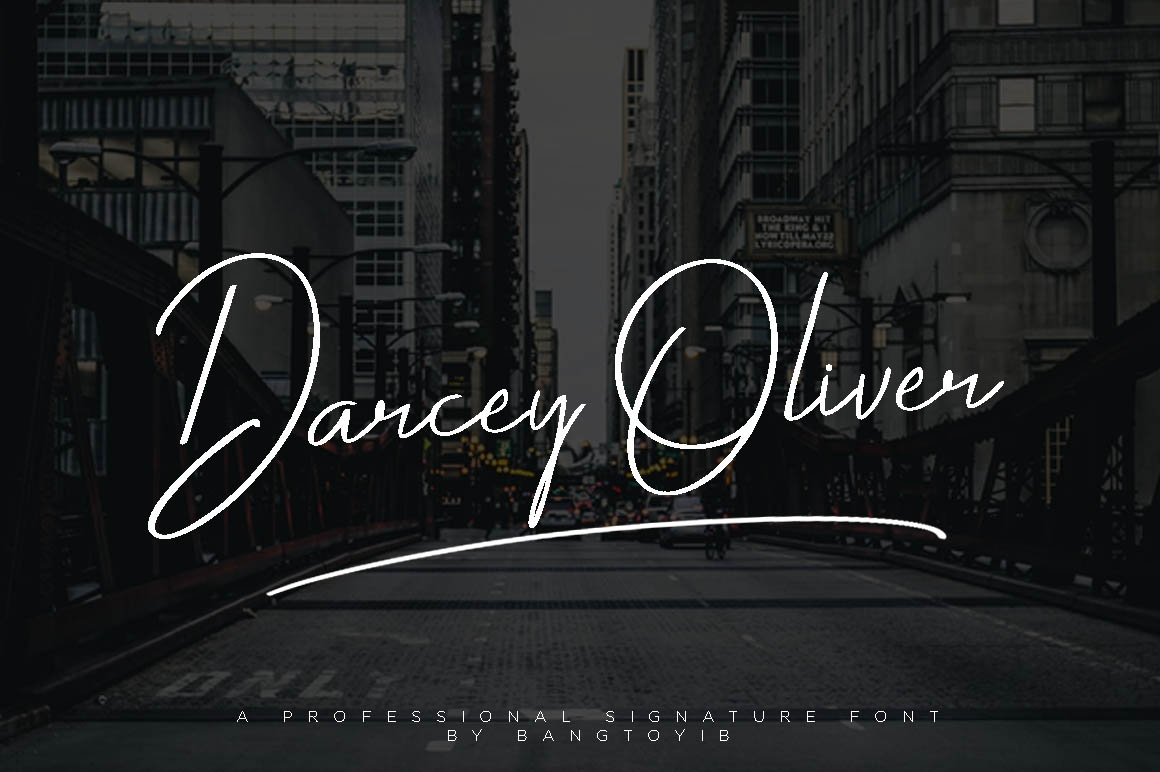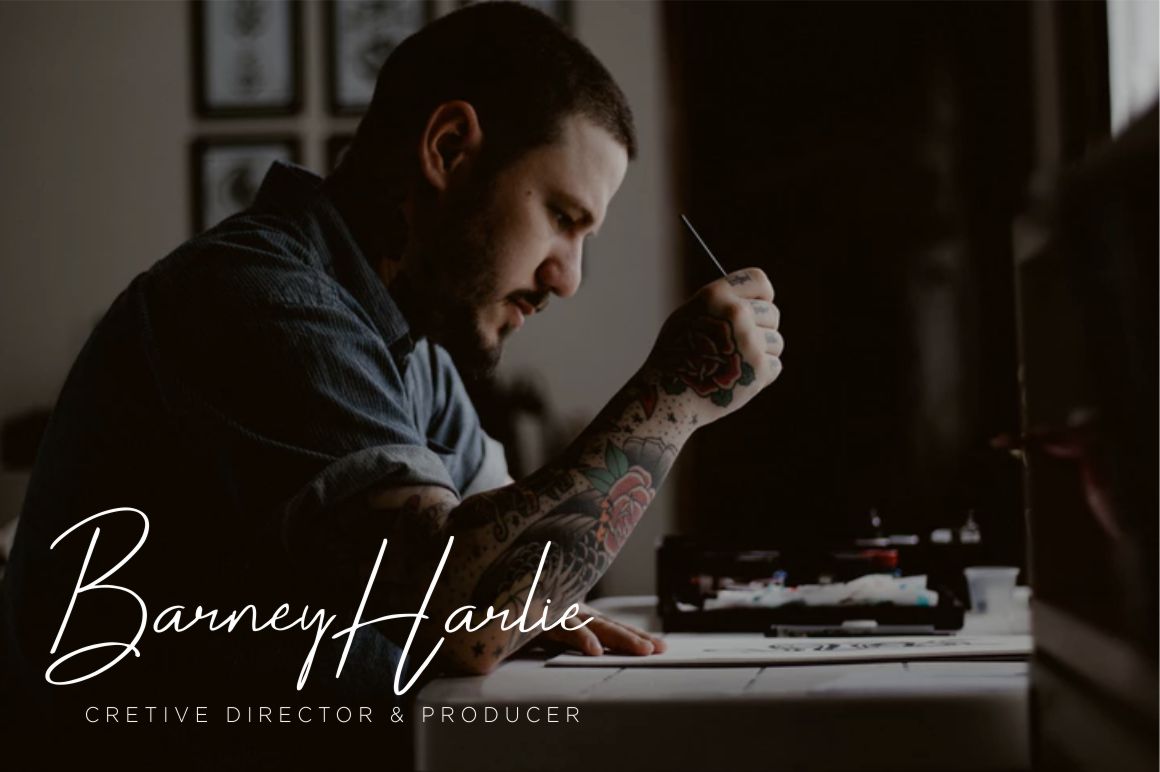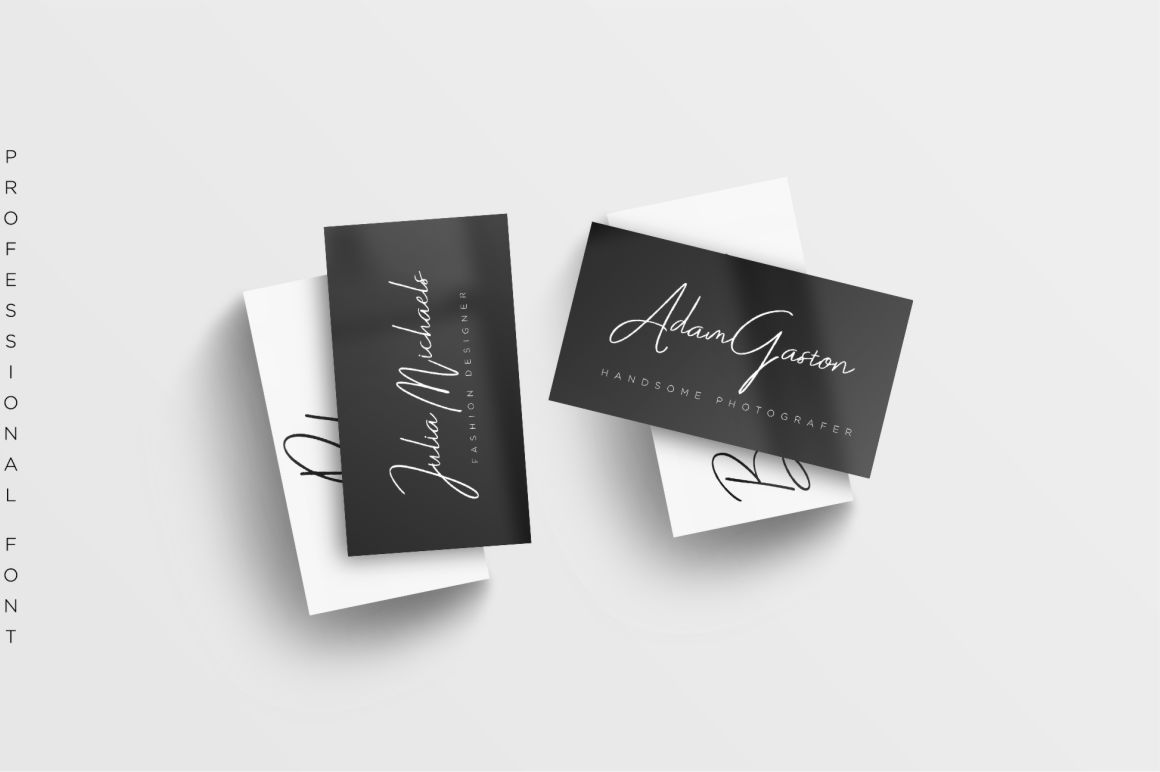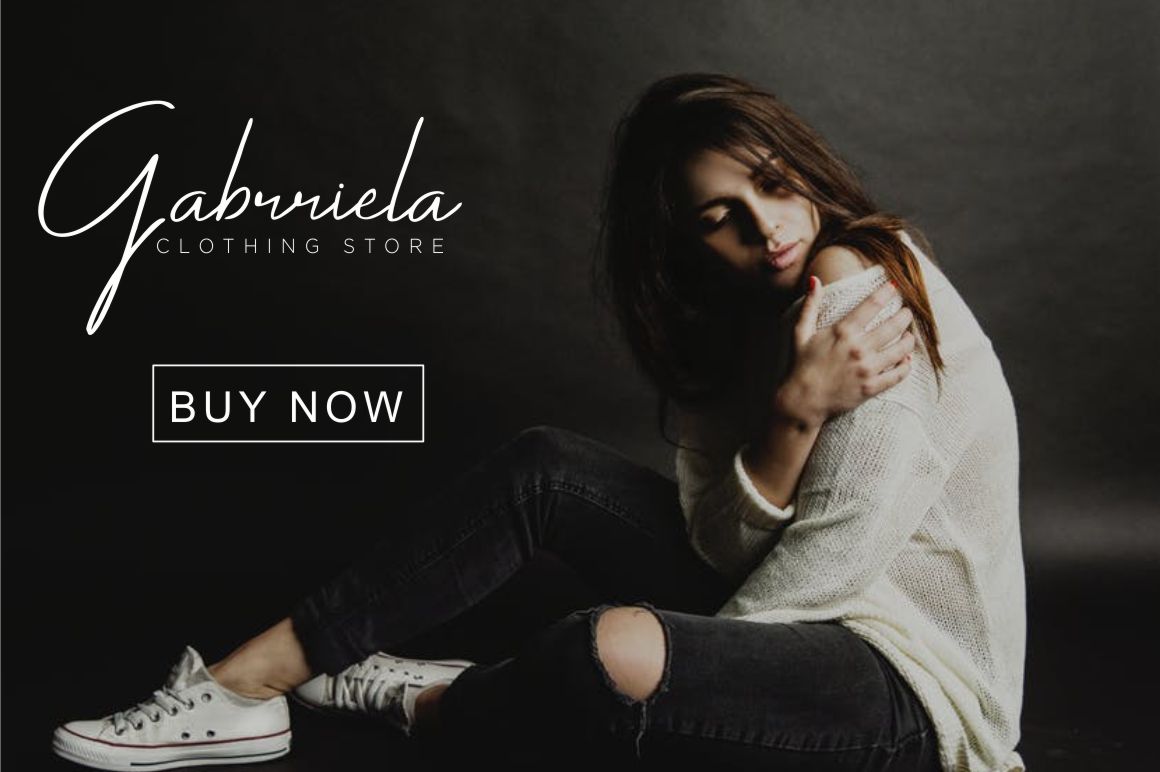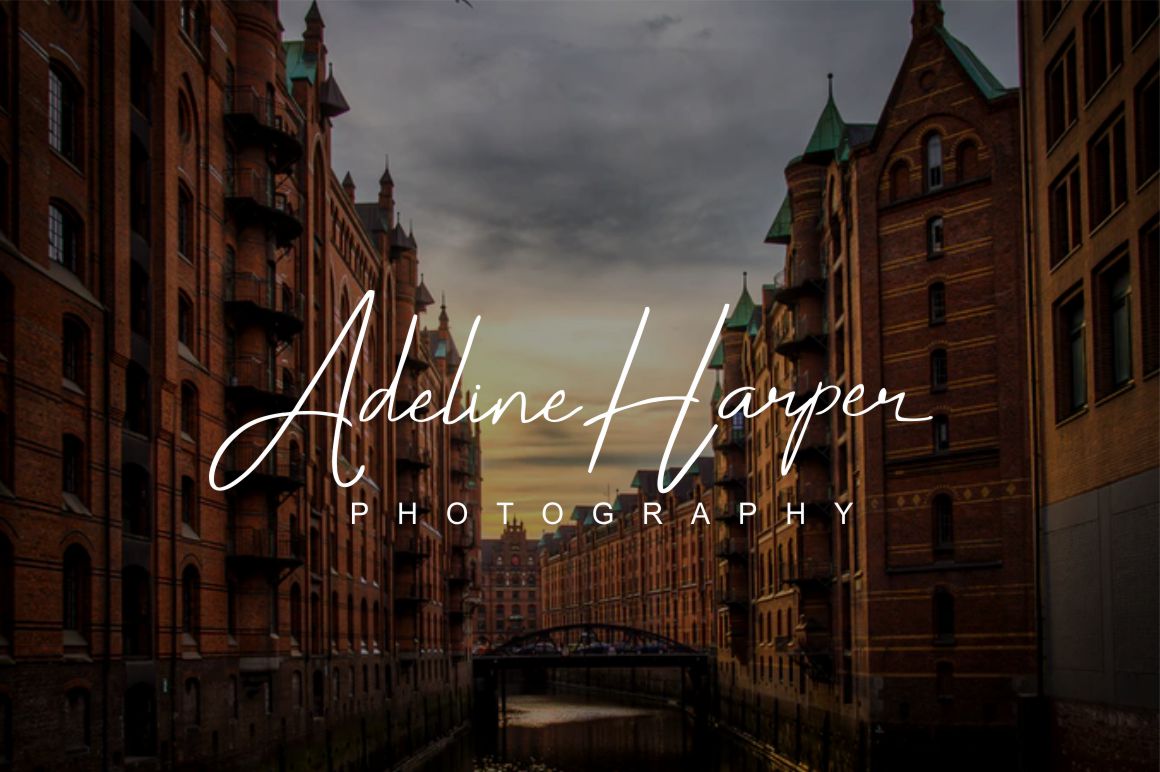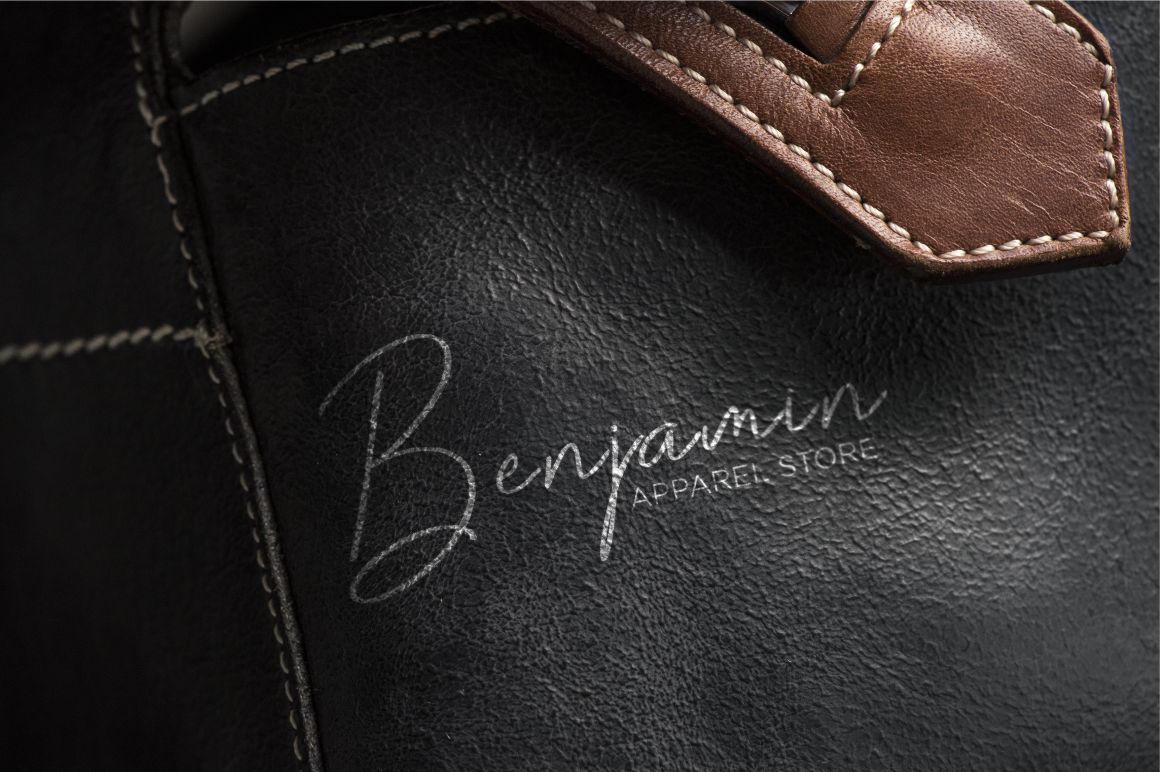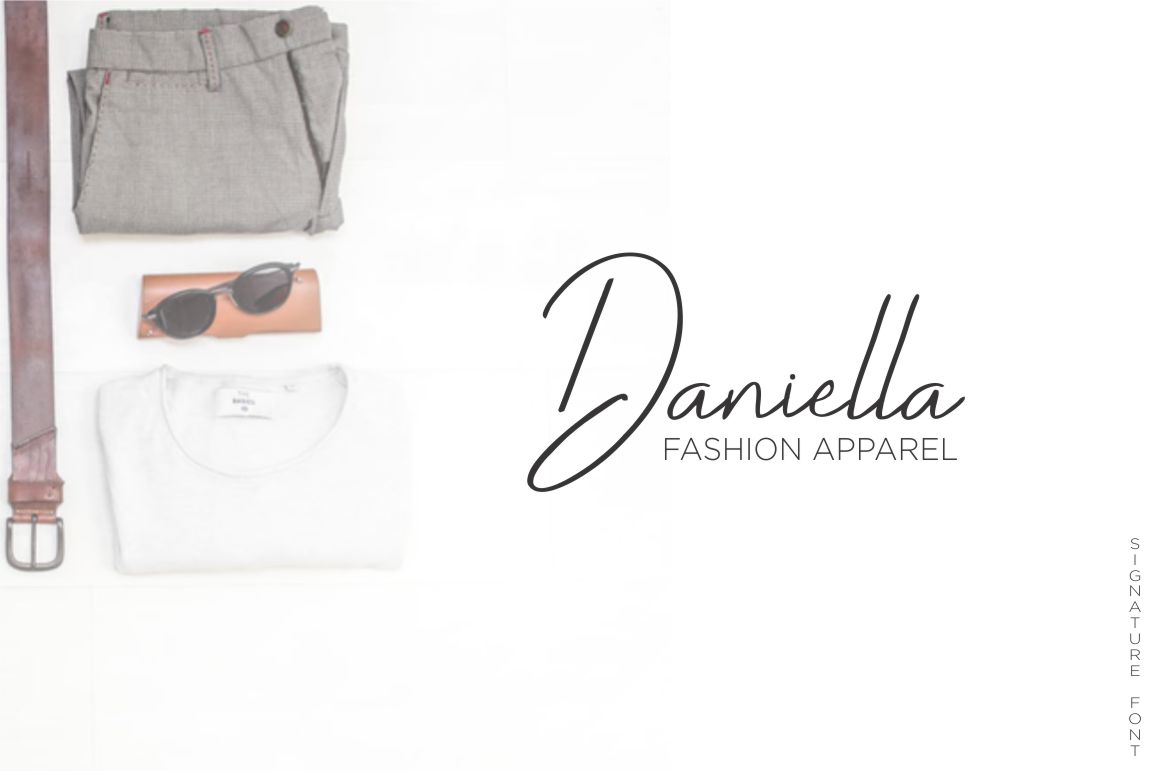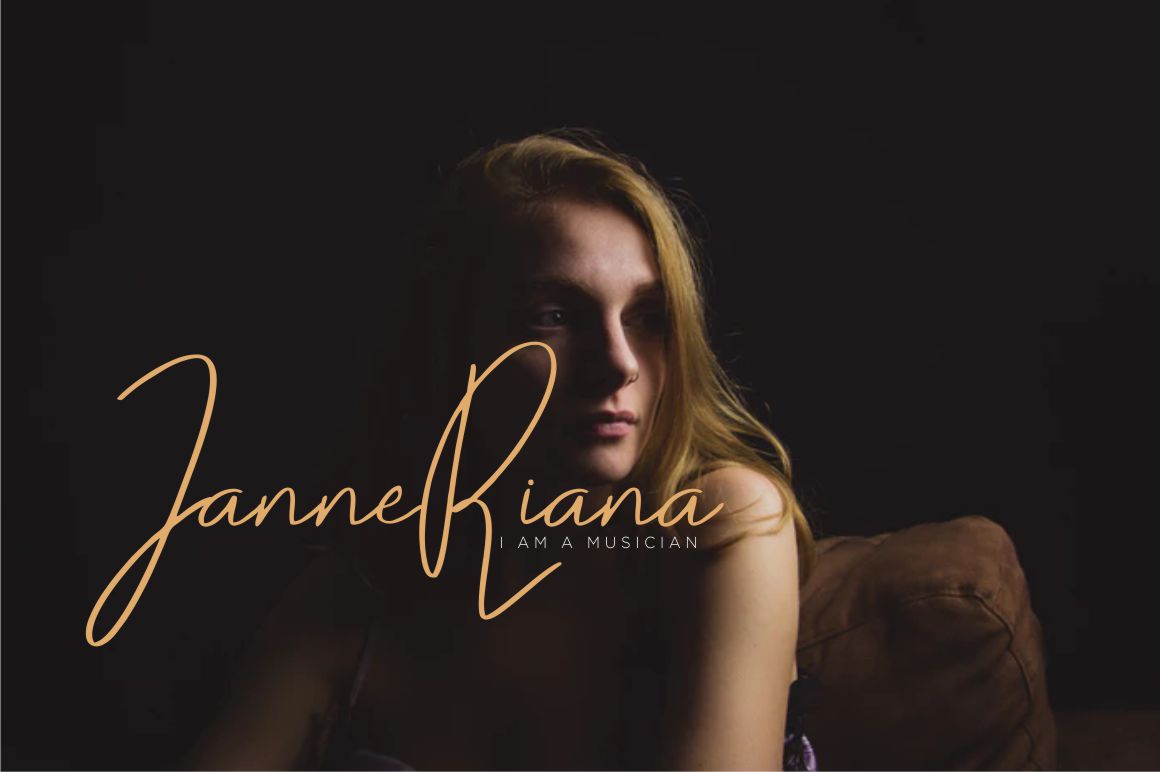
Darcey Oliver Font
About Darcey Oliver Font
The Darcey Oliver is an elegant looking signature font, perfect for adding some romance and charm to your designs.
This script functions most strongly as a display or headline font, but is suitable for logos, logotype, branding, wedding invites & decorations, fashion, label, book cover, t-shirt, Instagram post, and more!